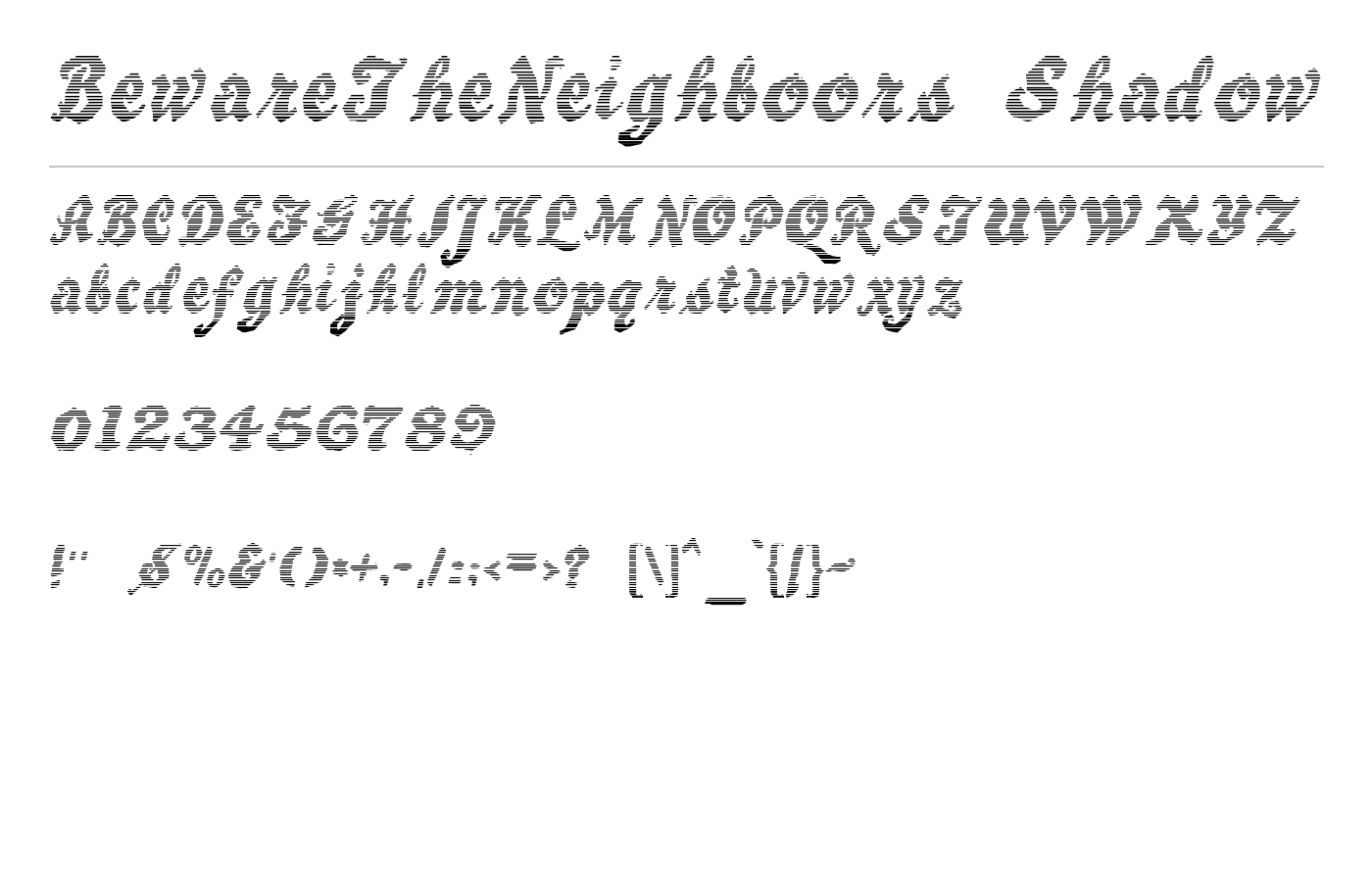
BewareTheNeighboors Shadow is a distinctive script font with a shadowed, striped texture that adds depth and a vintage-inspired flair. Its cursive letterforms blend elegance with a playful, eye-catching style, making it ideal for creative branding, retro posters, or standout headers. This font works best in display settings where its unique shadow effect can enhance visual interest and convey a bold, nostalgic personality.
BewareTheNeighboors Shadow Font
About BewareTheNeighboors Shadow Font
| Font family | BewareTheNeighboors Shadow Font |